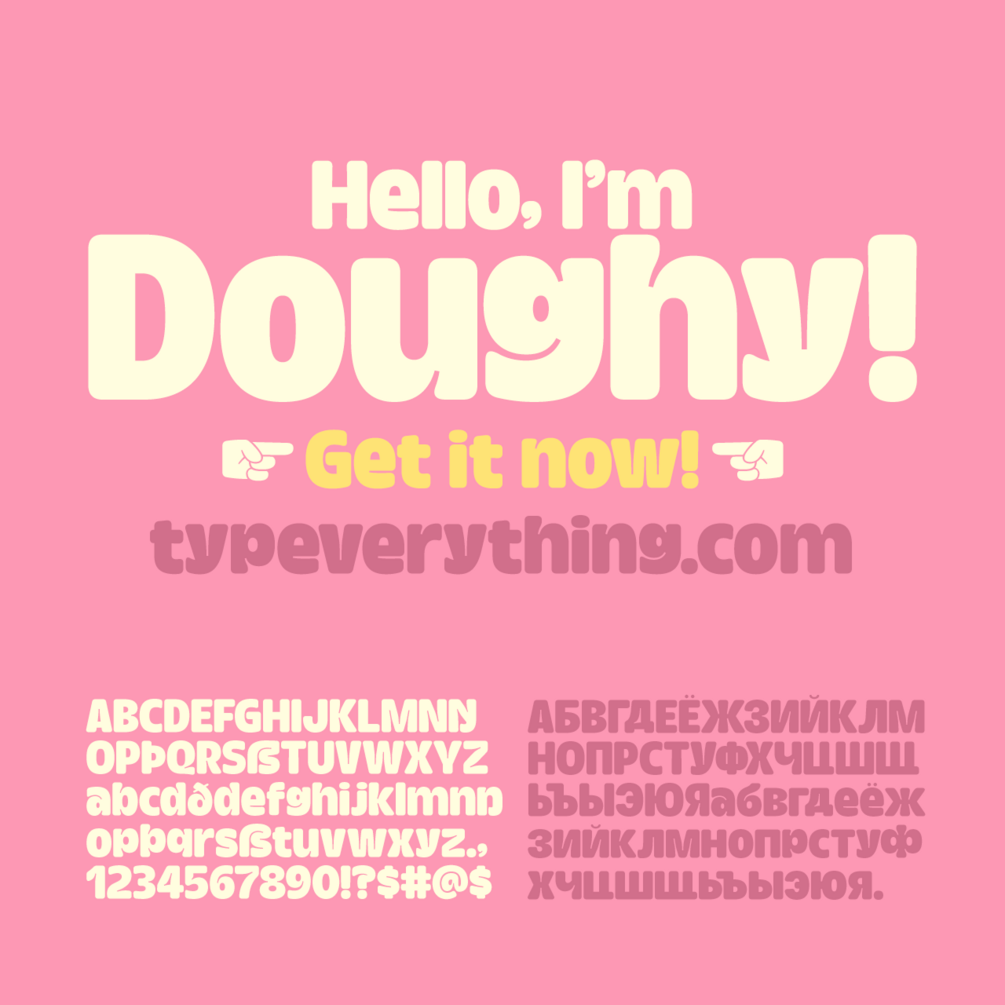
Doughy
Doughy is a soft and friendly display typeface with deep inktraps and tight spacing. This, combined with round corners and descenders boldly forced above the baseline, gives Doughy an endearing and quirky look. Don't worry! It comes with descending alternative glyphs if you want to keep your design a little more on the conventional side. Doughy is perfect for packaging or branding projects needing a modern and youthful feel.
Wide latin script support as well as Cyrillic. Opentype features. Designed by Teddy Derkert.